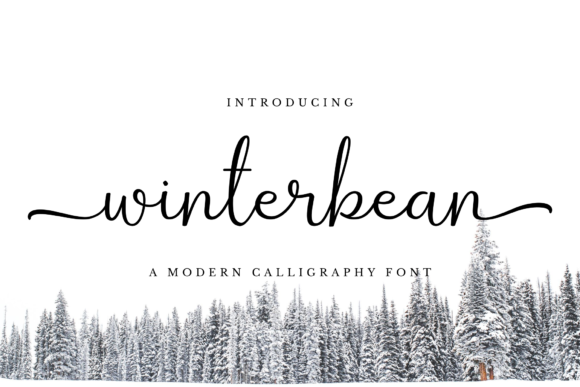
Welcome to the realm of Winterbean, a font family born from the fusion of elegance and modernity. Immerse yourself in the charm of this calligraphy font, delicately crafted with an array of alternates that infuse your creations with an air of grace. Step into a world where your words dance with beauty, guided by the enchanting flow of Winterbean.
Experience the allure of Winterbean, the perfect companion for your creative endeavors. With its timeless charm, this font elevates logos, product packaging, wedding invitations, and branding to new heights. Whether you seek an elegant touch for your headlines or a captivating energy for your signage, Winterbean stands ready to transform your vision into reality.
Unleash your creativity with Winterbean, the font that breathes life into labels, signatures, and book covers. Its versatility knows no bounds, extending to posters, quotes, and beyond. Discover the endless possibilities that await as you embrace the artistry of Winterbean.
Indulge in the beauty of Winterbean, a font that captures the essence of femininity and sophistication. Its delicate strokes evoke a sense of timeless elegance, while its contemporary charm keeps you firmly rooted in the present. Let Winterbean guide you towards a world where your creative dreams take flight.